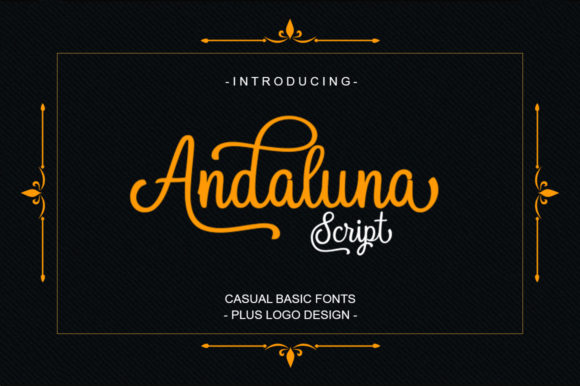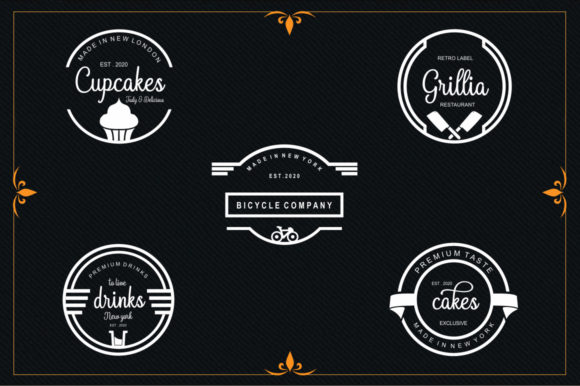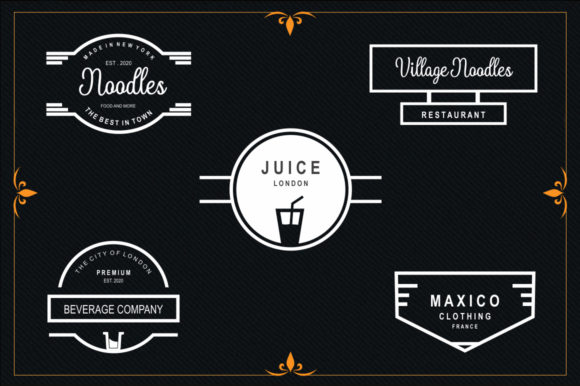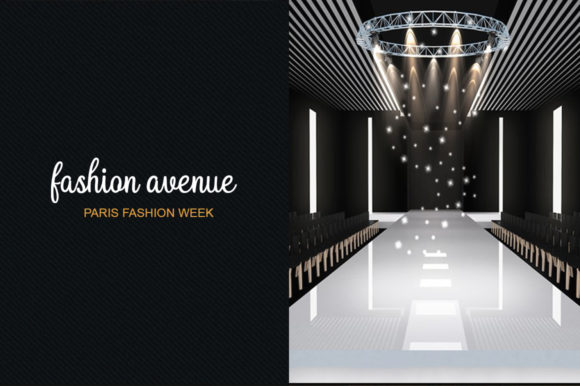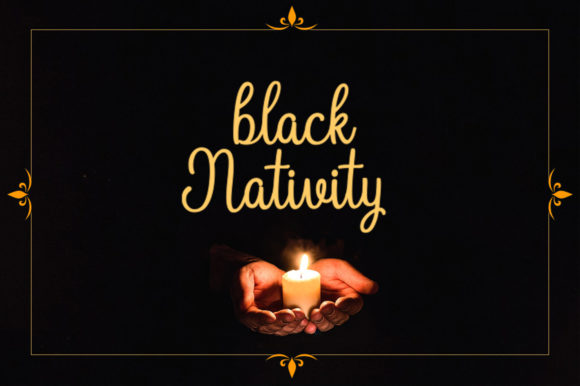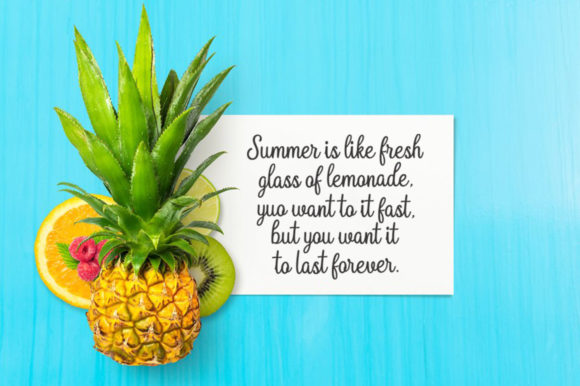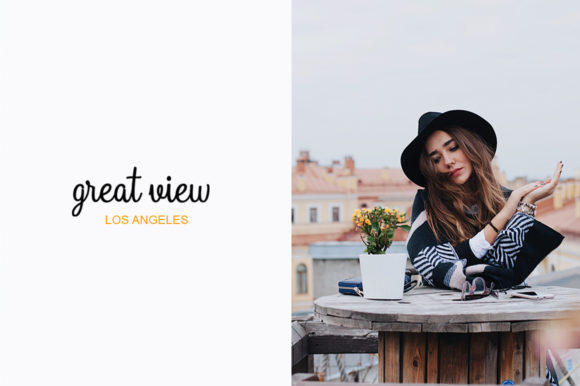
Andaluna Font
About Andaluna Font
Andaluna is an elegant handwritten font, carefully handcrafted to become a true favorite. It will elevate a wide range of design projects to the highest level, be it branding, headings, wedding designs, invitations, signatures, logos, labels, and much more!